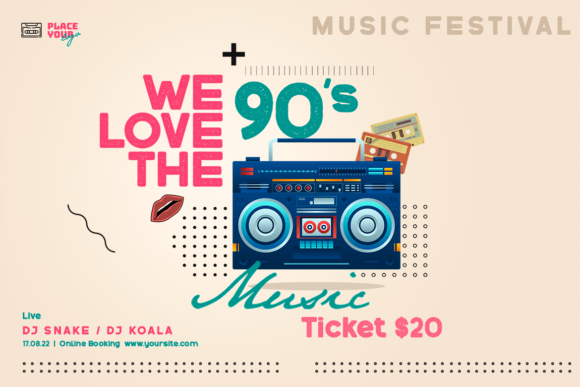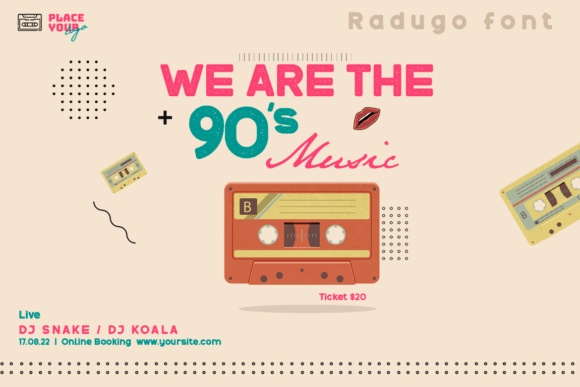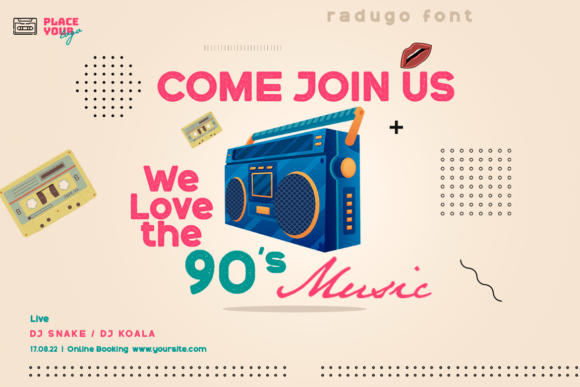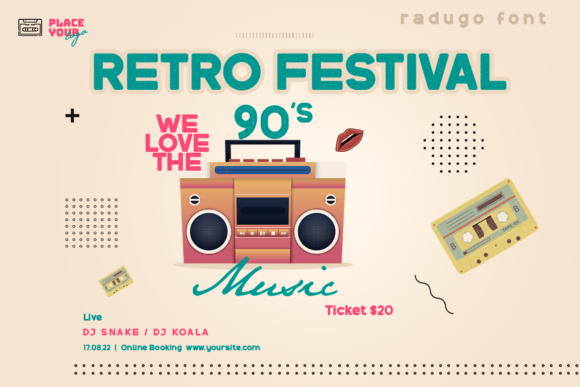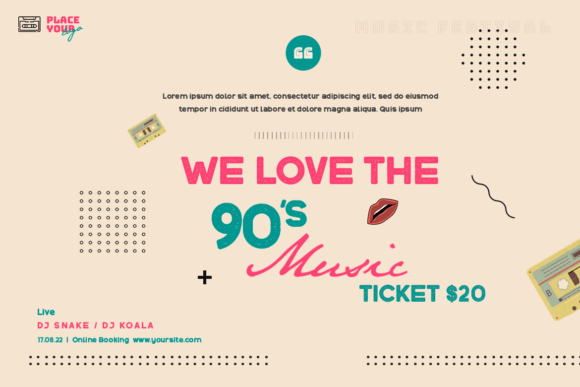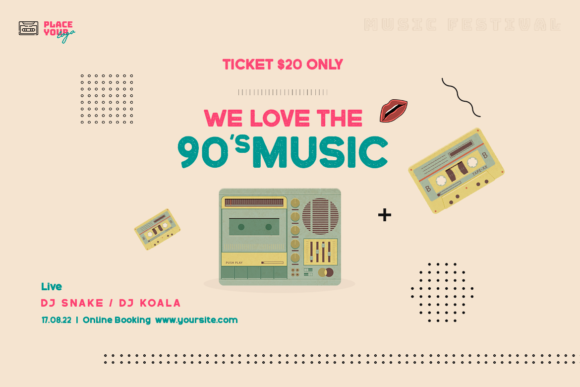
Introduction to Radugo Font Font
Fonts play a crucial role in design, and the Radugo Font font is a typeface that brings both character and versatility to any project. Whether you’re working on a branding project, a website, or a print design, the Radugo Font font offers a unique style that can elevate your work.
Radugo is a rough textured and thick lettered display font.
This font is ideal for writing web designs, business cards, or pretty much anything else that requires a bold touch .
Key Features of Radugo Font Font
Why Choose Radugo Font Font?
The Radugo Font font is more than just a typeface – it’s a design tool that helps you communicate your message with style and clarity. Its unique character set and versatile design make it suitable for a wide range of applications, from elegant invitations to bold headlines.
With its carefully crafted letterforms and balanced proportions, the Radugo Font font ensures readability and visual appeal across all mediums.
What makes Radugo Font font special?
The Radugo Font font stands out with its unique design, exceptional readability, and versatility across various design applications.